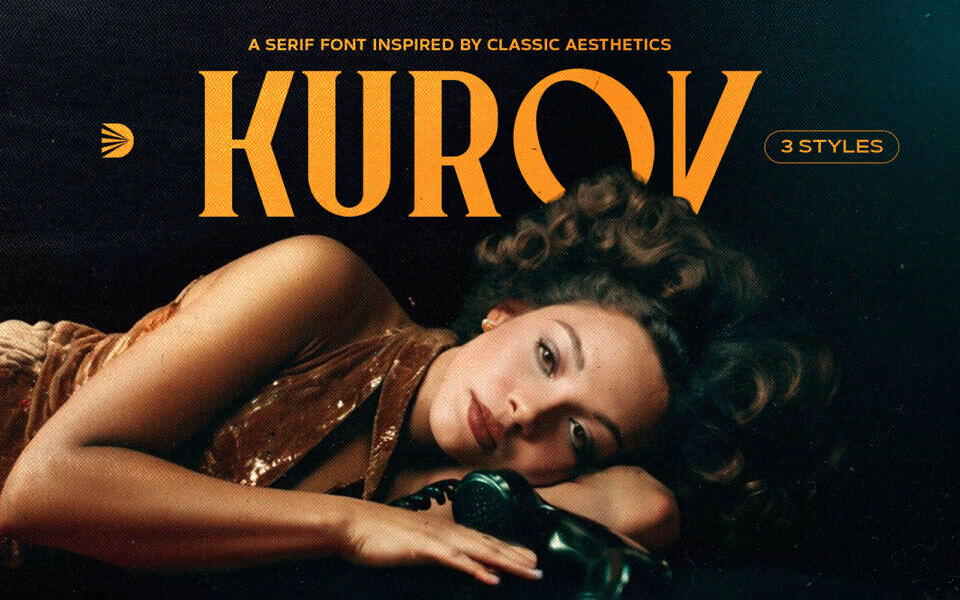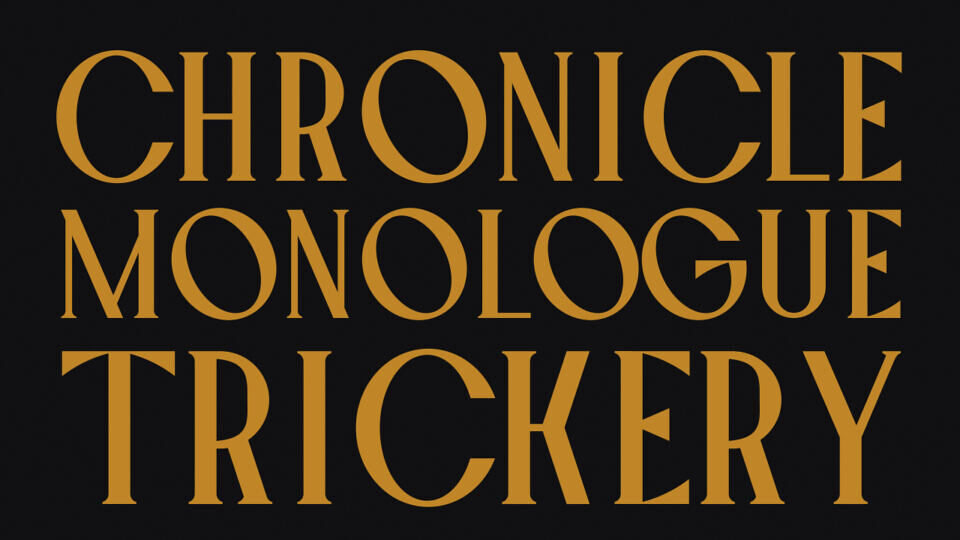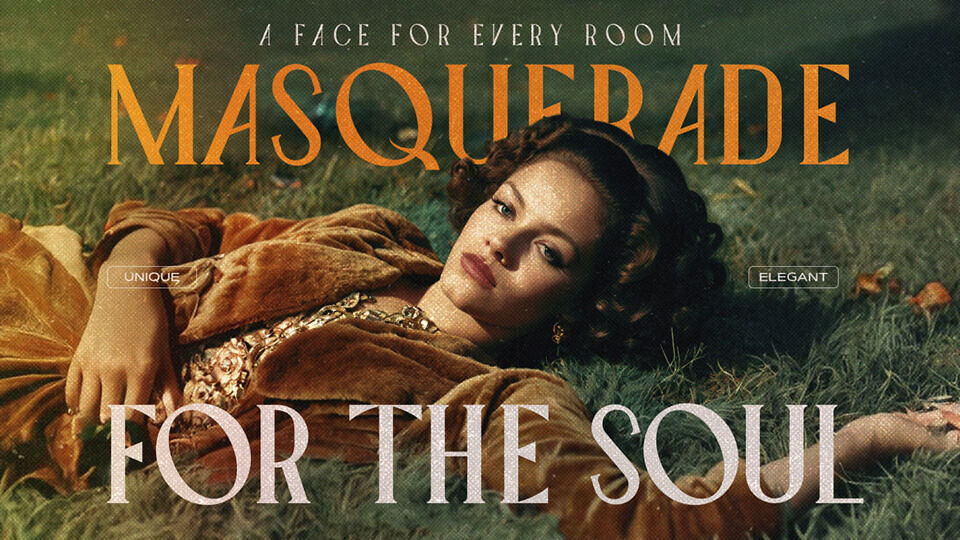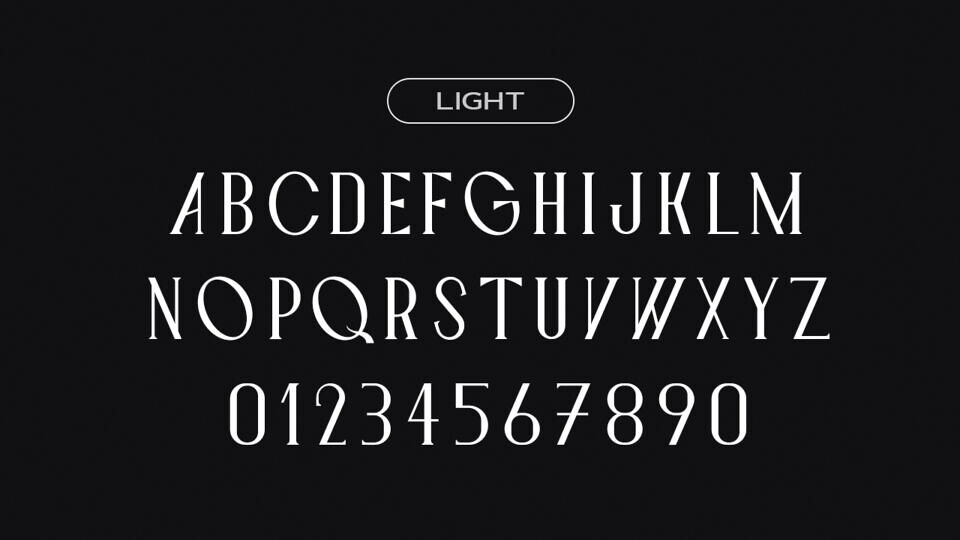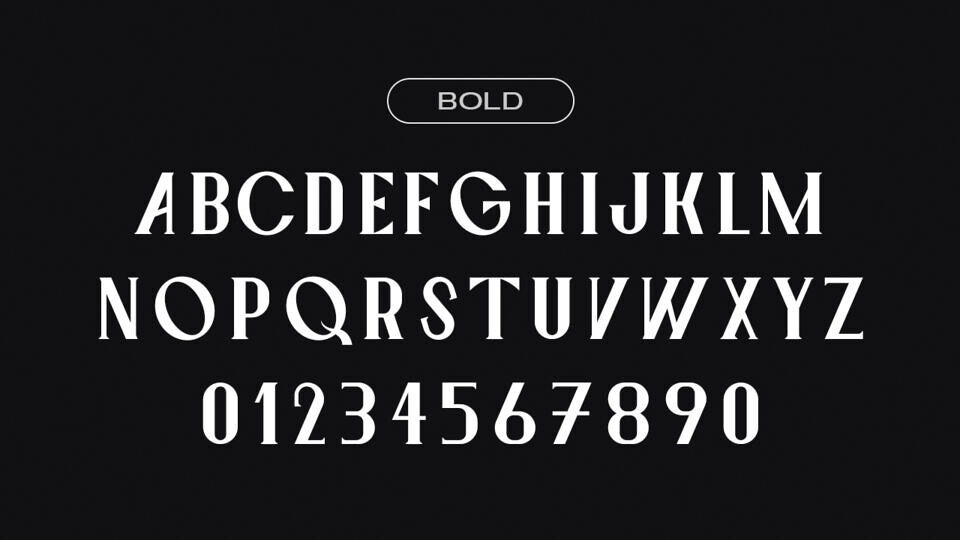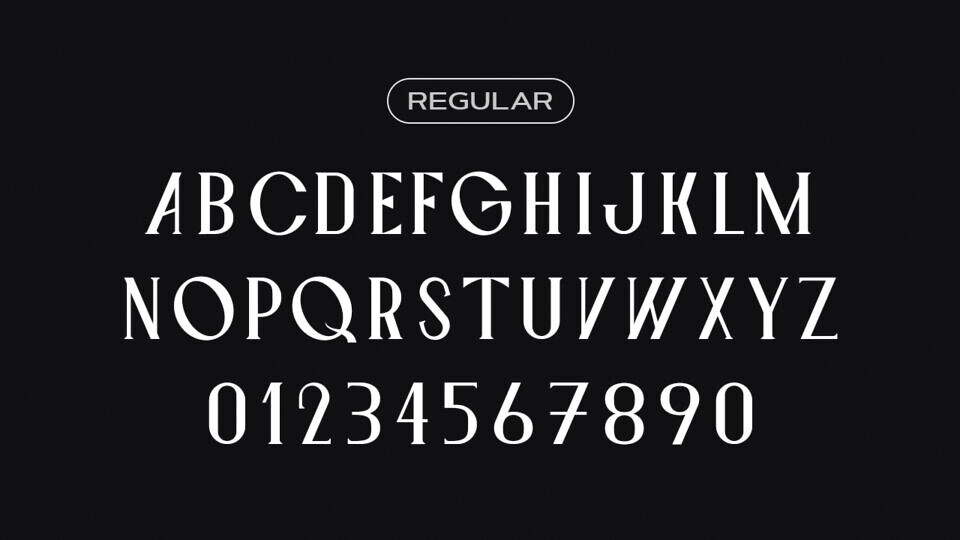
Kurov is a serif display font that combines elegance and simplicity. Its design features a balanced mix of thick and thin strokes, creating a clean, yet unique feel that works well in both modern and traditional settings.
Ideal for use in branding, editorial design, headlines, and more, this typeface brings a touch of refinement to any project without overwhelming the viewer.